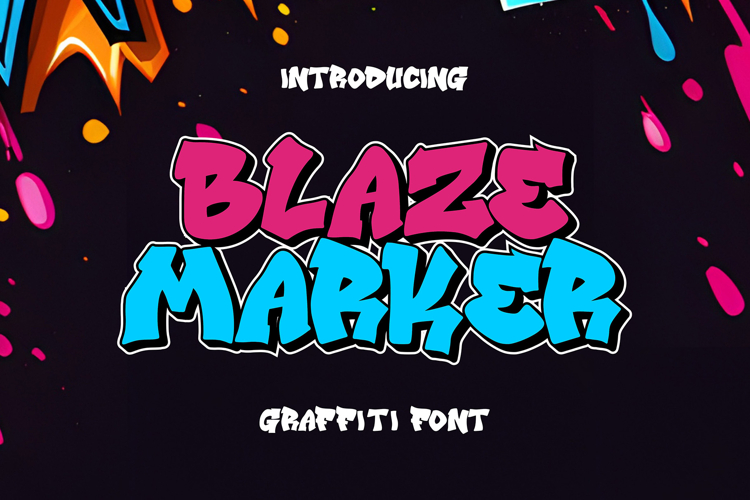
Blaze Marker|Urban Graffiti Font | Layered
Bring bold attitude and urban energy to your design work with Blaze Marker – a high-impact graffiti display font that commands attention. With all-caps styling, chunky 3D effects, and a bold, aggressive letter structure, Blaze Marker is the perfect font for projects that demand fearless creativity and raw street appeal.
Whether you're working on hip-hop album art, event posters, YouTube thumbnails, or skate culture graphics, this font will make your message explode with energy.
What is Blaze Marker?
Blaze Marker is a graffiti-inspired display typeface with a loud, rebellious spirit. Built with thick strokes, sharp angles, and a 3D shadow effect, each letter feels dynamic and alive—just like the street art that inspired it.
It’s not just a font—it’s visual noise, street attitude, and design impact in one loud voice.
Key Features
- All Caps Typeface – Built entirely in uppercase for maximum presence
- Graffiti Style Design – Influenced by urban tagging and spray-paint vibes
- 3D Shadow Effect – Adds depth and energy to your type
- Strong Visual Impact – Chunky, bold forms for attention-grabbing layout
Perfect For:
- Graffiti Posters & Flyers
- Hip-Hop Music Art & Logos
- Skate Culture Graphics
- YouTube Thumbnails & Intros
- DJ/Club Night Promotions
- Stickers, Tags, & Merch
- Bold Social Media Graphics
How to Use Blaze Marker Effectively
- Use on Dark Backgrounds – The 3D shadow pops with max contrast.
- Pair with Urban or Grunge Textures – Enhance the gritty, real-world feel.
- Overlay with Spray Effects or Color Splatters – Push the street-style aesthetic further.
- Make It Loud – Headlines, not body copy. This font was built to be seen.
Why Designers Choose Blaze Marker Designers love Blaze Marker for its raw, in-your-face visual energy. It’s more than just legible—it’s expressive, confident, and unapologetically urban. If you want to create work that feels alive, active, and authentic, Blaze Marker brings the edge.